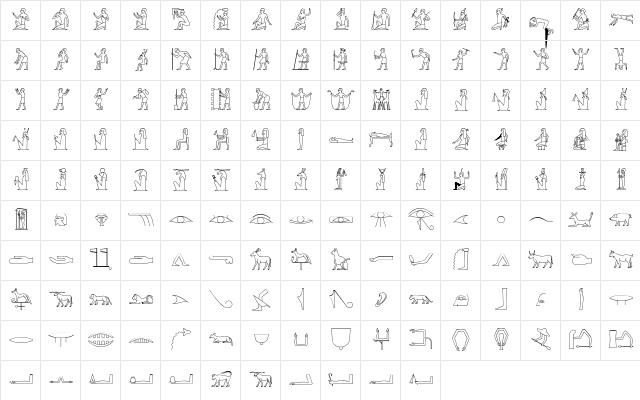
GlyphBasic A Free Font
GlyphBasic A
Style: A
Design Context for GlyphBasic
GlyphBasic is a composed and adaptable typeface that performs quietly and consistently across a wide range of design contexts.